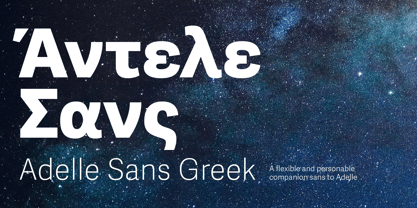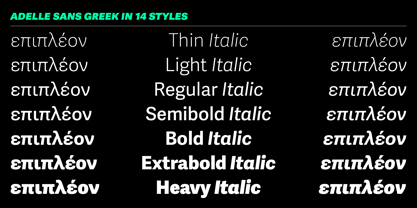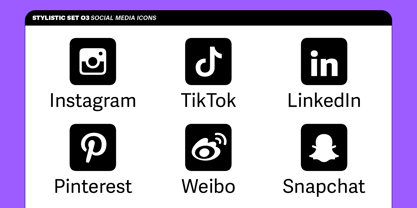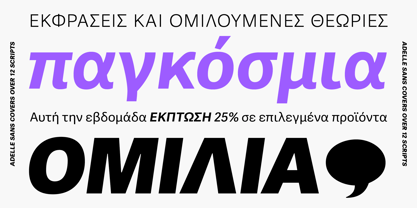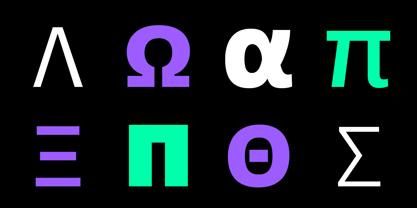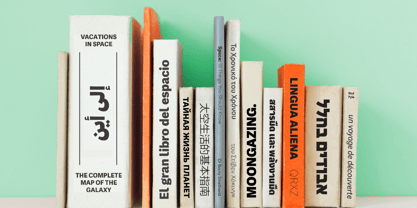
Adelle Sans Greek
by TypeTogether
The Adelle Sans Greek Font Family was designed by Veronika Burian, José Scaglione, Irene Vlachou and published by TypeTogether. Adelle Sans Greek contains 14 styles and family package options. More about this family
Adelle Sans, José Scaglione and Veronika Burian’s sans serif counterpart to the award-winning Adelle type family, provides a more clean and spirited take on the traditional grotesque sans.
As is typical with TypeTogether typefaces, the most demanding editorial design problems were taken into consideration when creating Adelle Sans. The combination of lively character and unobtrusive appearance inherent to grotesque sans serifs make Adelle Sans an utterly versatile tool for every imaginable situation. Whether for branding, signage, or advertising, the keyword behind Adelle Sans’ use is flexibility.
Adelle Sans is available in 15 weights with matching italics, and includes seven roman styles with their matching italics in a condensed width to save space and keep legibility high. Each of these 30 styles is a perfect counterpart in terms of weight and vertical proportions to its slab serif equivalent, Adelle, and the condensed widths are adept at setting short texts while retaining all the personality expected from the Adelle family.
This ensures an harmonious fit between both type families in the same block of text,and a pleasing change of texture when used at similar point sizes.
\ To support Greek and Cyrillic and to ensure coherence in the entire family, Spanish designer Octavio Pardo helped with the Cyrillic script and Greek expert Irene Vlachou designed the Greek script. The 1,145 character set includes typographic niceties, small caps, several sets of figures, and support for over 90 languages. It also includes a set of 35 icons specially designed for electronic publications.
The complete Adelle Sans family, along with our entire catalogue, has been optimised for today’s varied screen uses.
Be sure to check out the companion for Adelle Sans, Adelle, for a versatile and authoritative slab serif with no shortage of personality.
Designers: Veronika Burian, José Scaglione, Irene Vlachou
Foundry: TypeTogether
Adelle Sans Greek